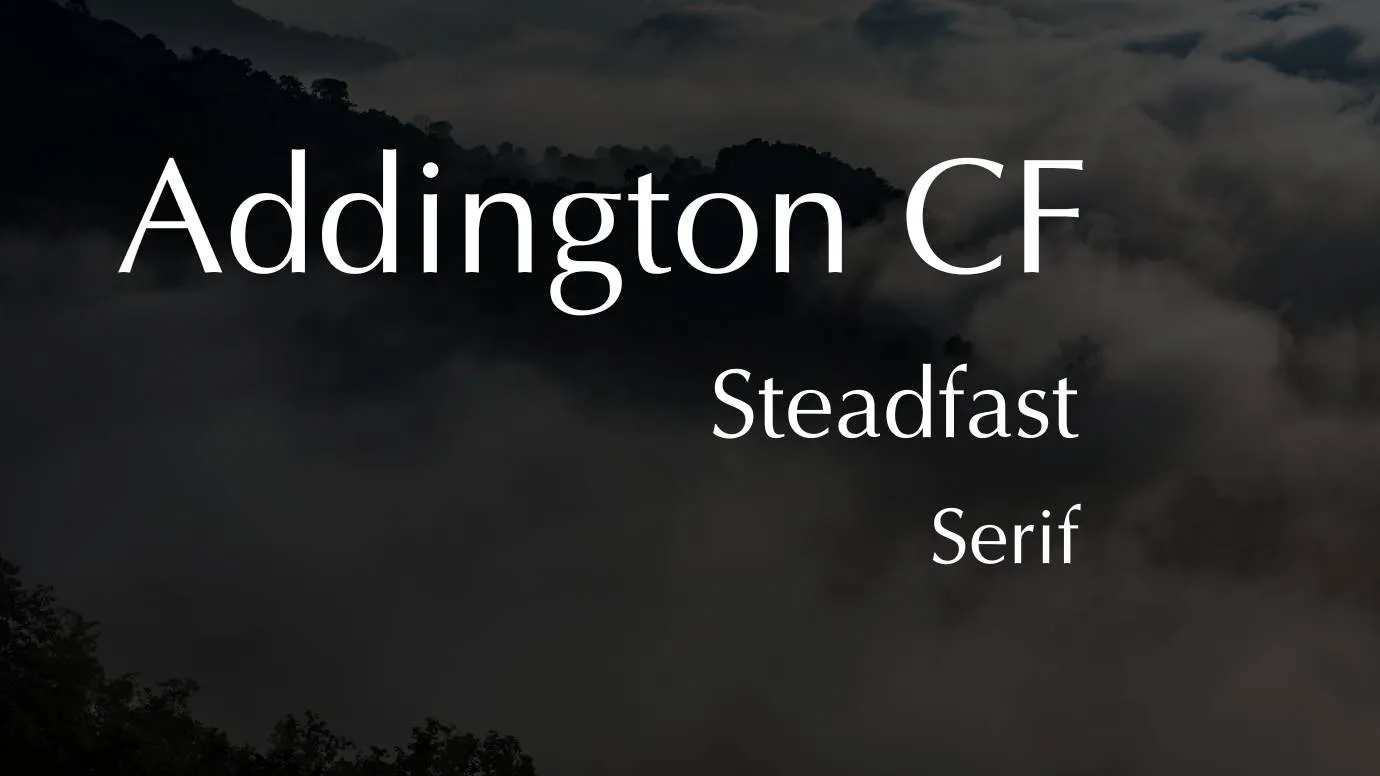
Addington CF Steadfast Font Family is another first-rate serif typeface that was designed and shared by Connary Fagen Foundry. This font family comes in fourteen weights and 14 styles and you can make amazing designs when using this typeface with the styles of Voga Font. A great thing about this typeface is that it provides stylish characters to the users and this is a very reliable and charming font for any type of project.
You can bring an impressive look to any kind of design project. It provides Opentype features and unique glyphs. This typeface is also suitable for small and large text and it has 6 weights along with matching italics.
What type of font is Addington CF Steadfast?
This is a fantastic serif typeface that was designed by Connary Fagen Foundry. This font family has 14 styles and comes in 7 weights.
What’s the Closest Font to Addington CF Steadfast?
There are a large number of similar fonts like this font but Pierpont font is the most similar font to this typeface.